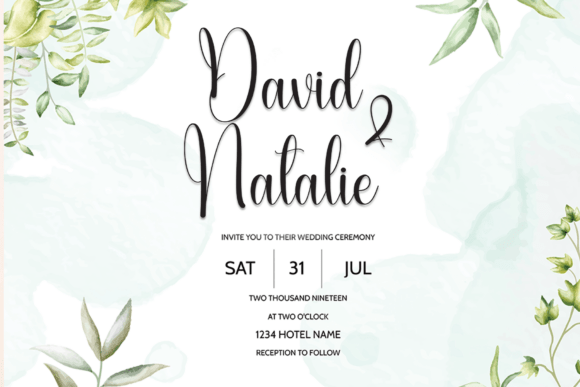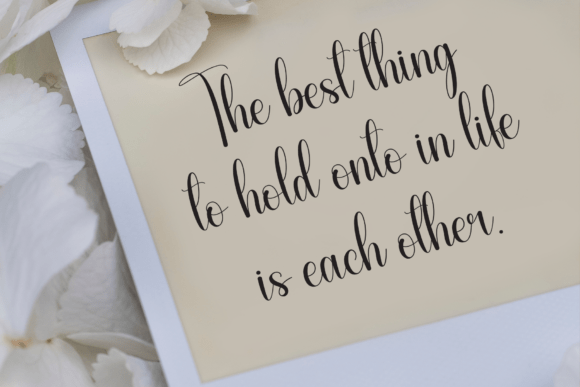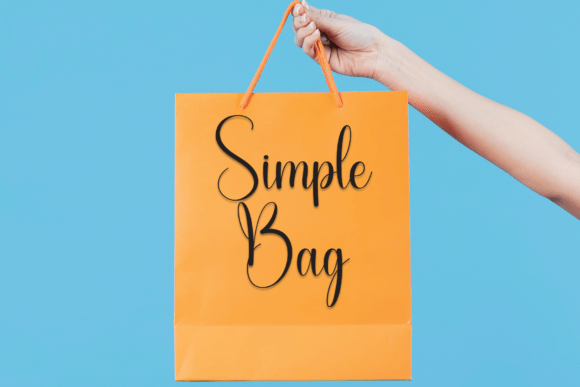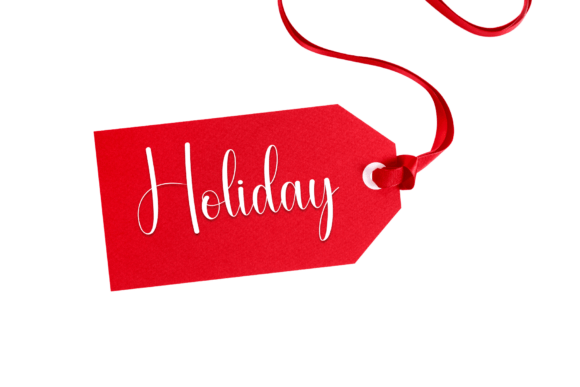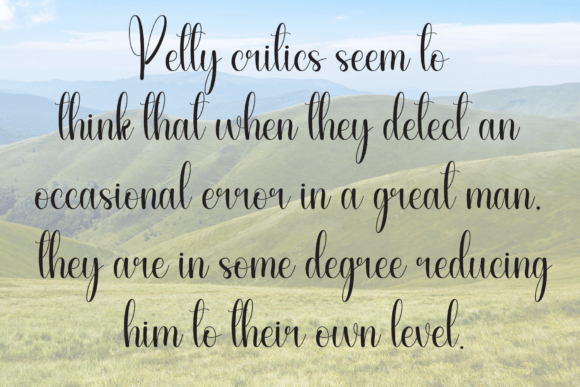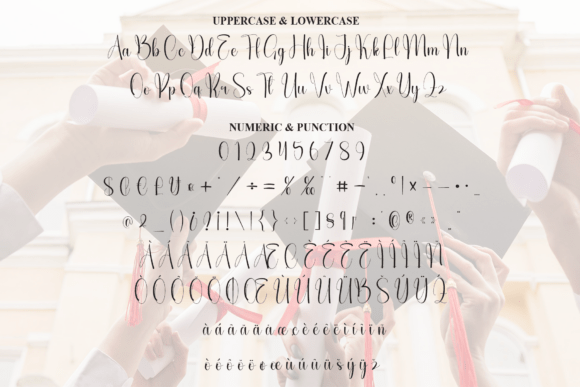
Introducing Graduation Font: The Perfect Blend of Elegance and Playfulness
Are you a designer or crafty individual looking for a font that can add a touch of sophistication and whimsy to your projects? Look no further than Graduation Font, a stylish handwritten script font that is sure to capture your audience’s attention. With its flowing curves and natural rhythm, Graduation Font brings a personal, charming touch to invitations, branding, and social media.
The Characteristics of Graduation Font
Graduation Font is a beautifully designed font that boasts a range of characteristics that make it perfect for a variety of projects. Some of its key features include:
- Elegant and Playful: Graduation Font strikes the perfect balance between elegance and playfulness, making it suitable for a wide range of applications, from formal invitations to social media graphics.
- Flowing Curves: The font’s flowing curves and natural rhythm give it a sense of movement and fluidity, making it perfect for creating dynamic and engaging designs.
- Handwritten Script: Graduation Font is a handwritten script font, which gives it a personal and charming touch that is sure to resonate with your audience.
- Warm and Sophisticated: The font’s graceful design brings a sense of warmth and sophistication to any project, making it perfect for creating high-end branding and marketing materials.
Uses for Graduation Font
Graduation Font is a versatile font that can be used for a wide range of projects, including:
- Invitations: Whether you’re planning a wedding, birthday party, or graduation ceremony, Graduation Font is the perfect choice for creating beautiful and elegant invitations.
- Branding: Graduation Font can be used to create stunning branding materials, such as logos, business cards, and letterheads, that reflect your company’s values and personality.
- Social Media: The font’s playful and elegant design makes it perfect for creating engaging social media graphics, such as Instagram posts and Facebook headers.
- Crafting: Graduation Font can also be used for crafting projects, such as making personalized gifts, cards, and scrapbooking.
Why Choose Graduation Font?
With so many fonts available, why choose Graduation Font? Here are just a few reasons why Graduation Font stands out from the crowd:
- Unique Design: Graduation Font has a unique and distinctive design that sets it apart from other fonts.
- High-Quality: The font is designed to be high-quality and easy to read, making it perfect for both digital and print applications.
- Versatile: The font’s versatility makes it suitable for a wide range of projects and applications.
Tips for Using Graduation Font
Here are a few tips for getting the most out of Graduation Font:
- Experiment with Sizes: Graduation Font looks great in a range of sizes, from small and delicate to large and bold.
- Pair with Other Fonts: The font pairs well with other fonts, such as sans-serif and serif fonts, to create visually appealing combinations.
- Use for Headlines and Titles: Graduation Font is perfect for creating eye-catching headlines and titles that grab your audience’s attention.
- Add a Personal Touch: Use Graduation Font to add a personal touch to your designs, such as by adding handwritten notes or signatures.
In conclusion, Graduation Font is a stylish and versatile font that is perfect for designers and crafters looking to add a touch of elegance and playfulness to their projects. With its flowing curves, natural rhythm, and handwritten script design, Graduation Font is sure to capture your audience’s attention and bring a personal, charming touch to your designs.